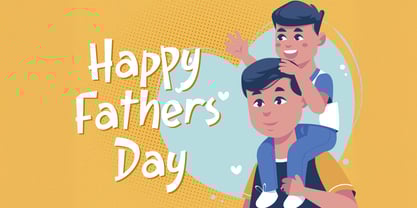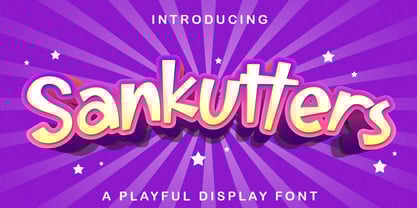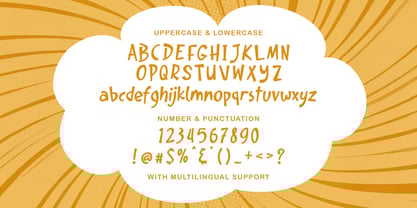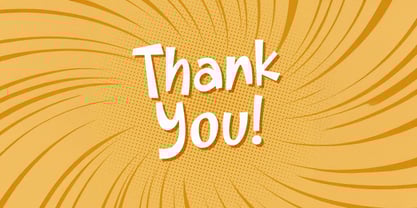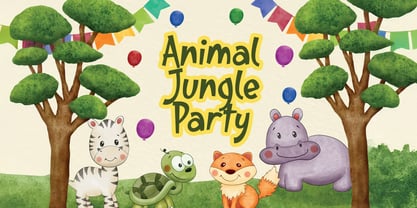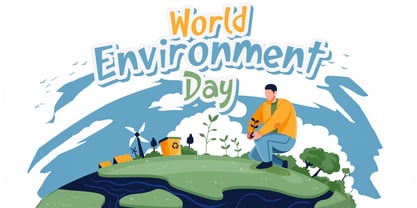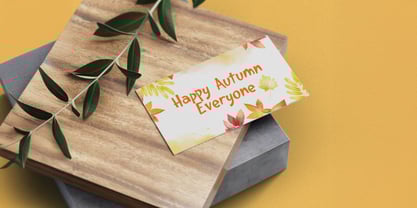
The Sankutters Font Family was designed by Virgiawan Listanto and published by Stringlabs Creative Studio. Sankutters contains 1 styles. More about this family
Sankutters is a whimsical and energetic playful display font that's ready to bring a smile to any design. Its quirky charm and bold presence make it perfect for headlines, posters, children's designs, and anything that needs a touch of fun and personality.
Designers: Virgiawan Listanto
Current Foundry: Stringlabs Creative Studio